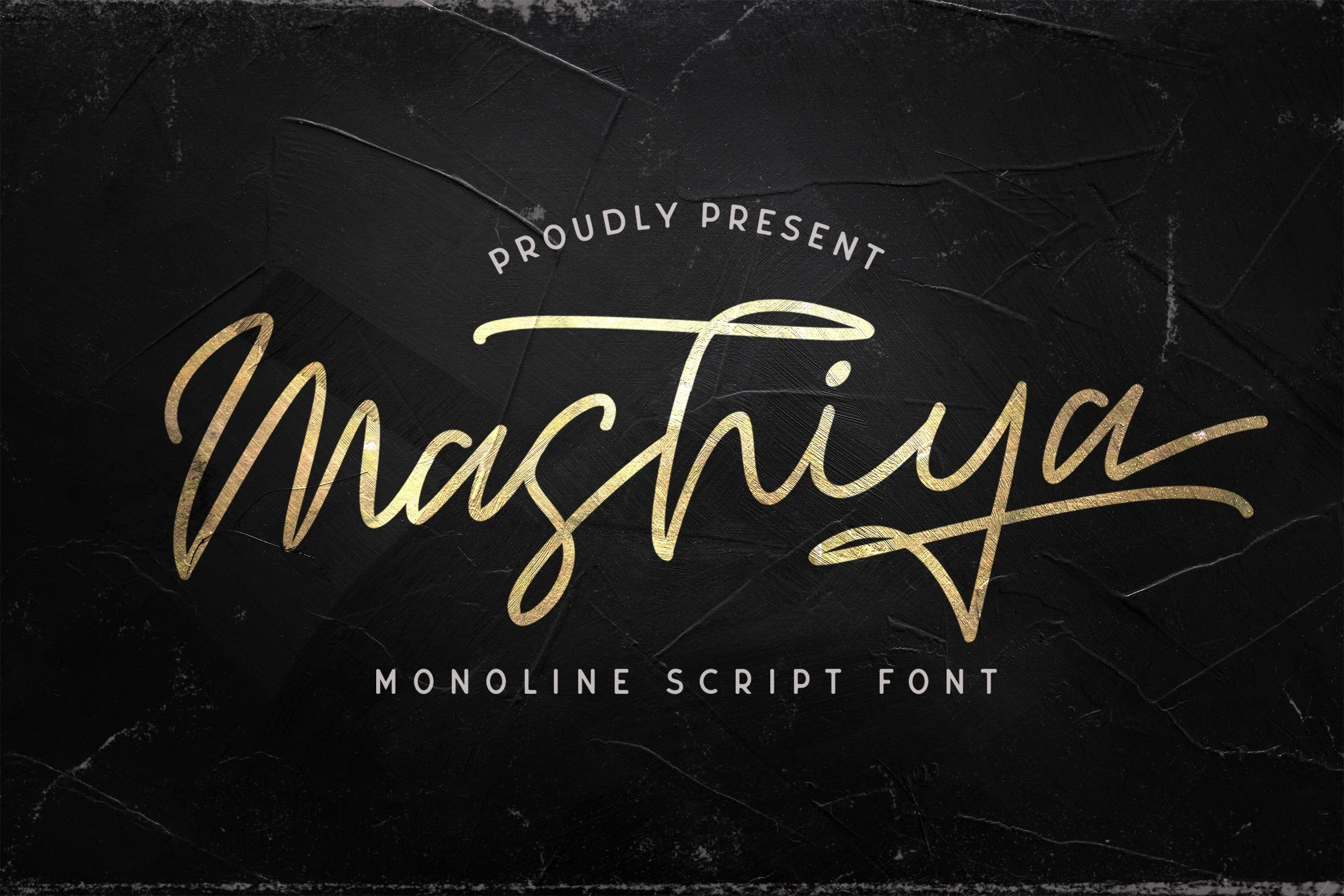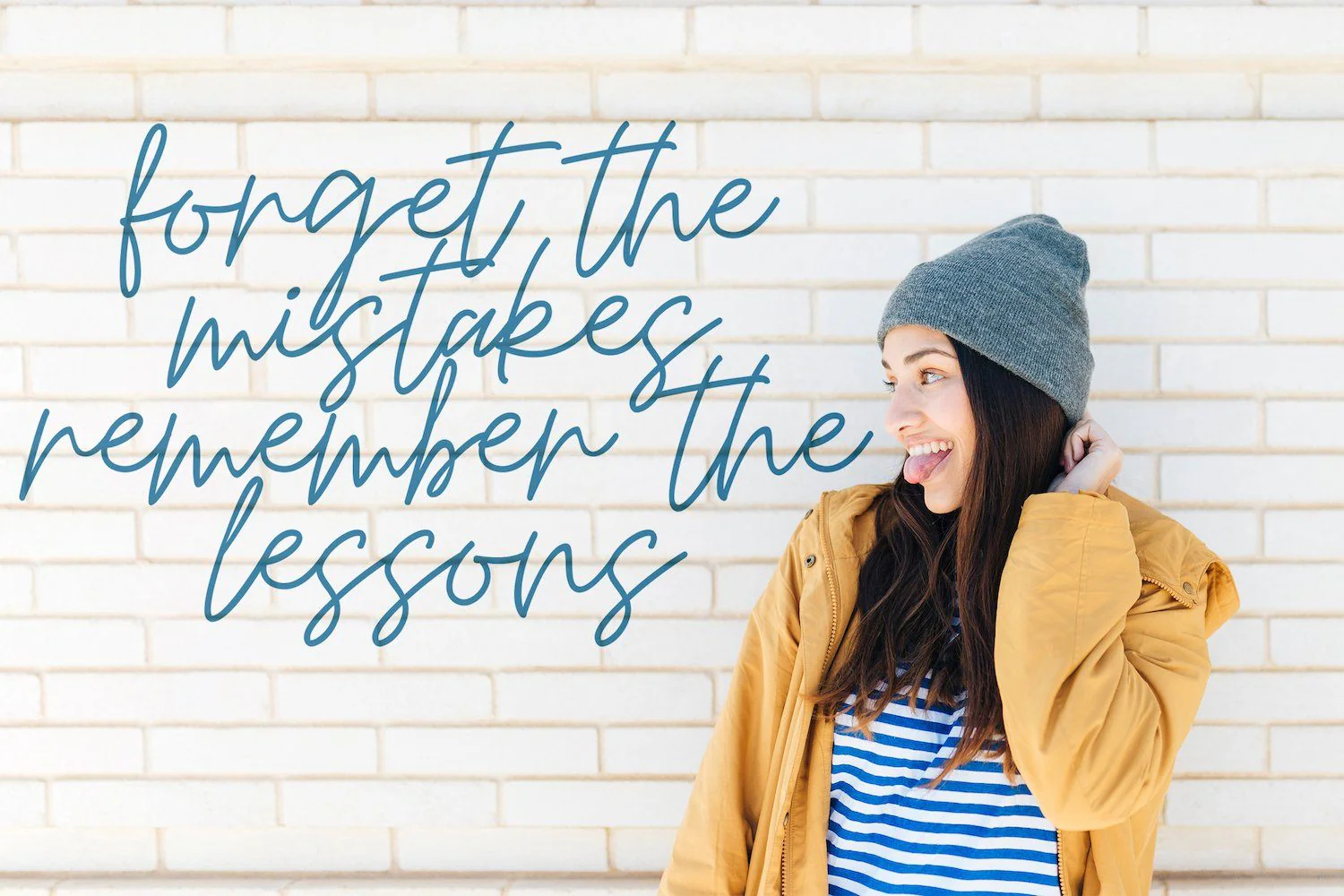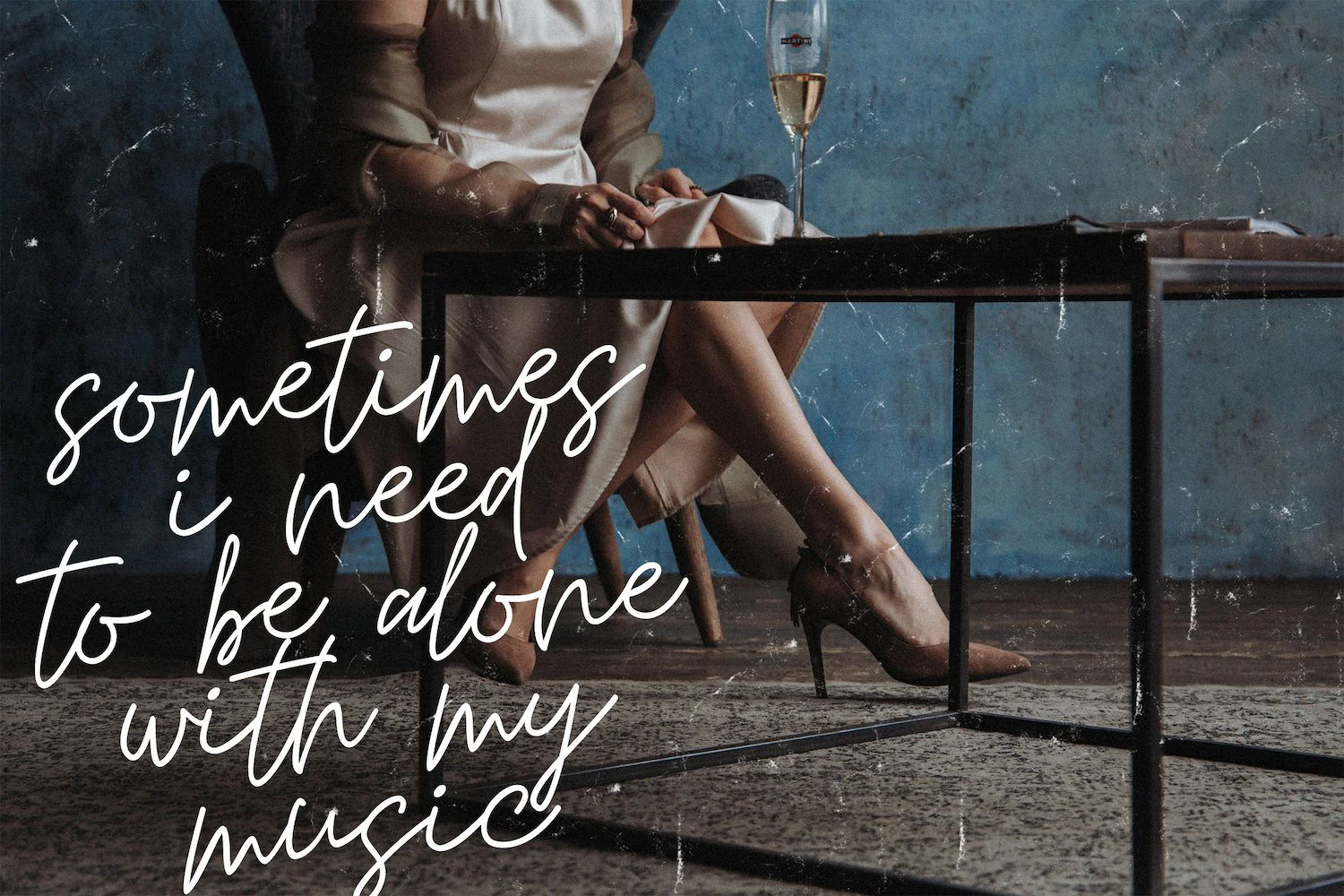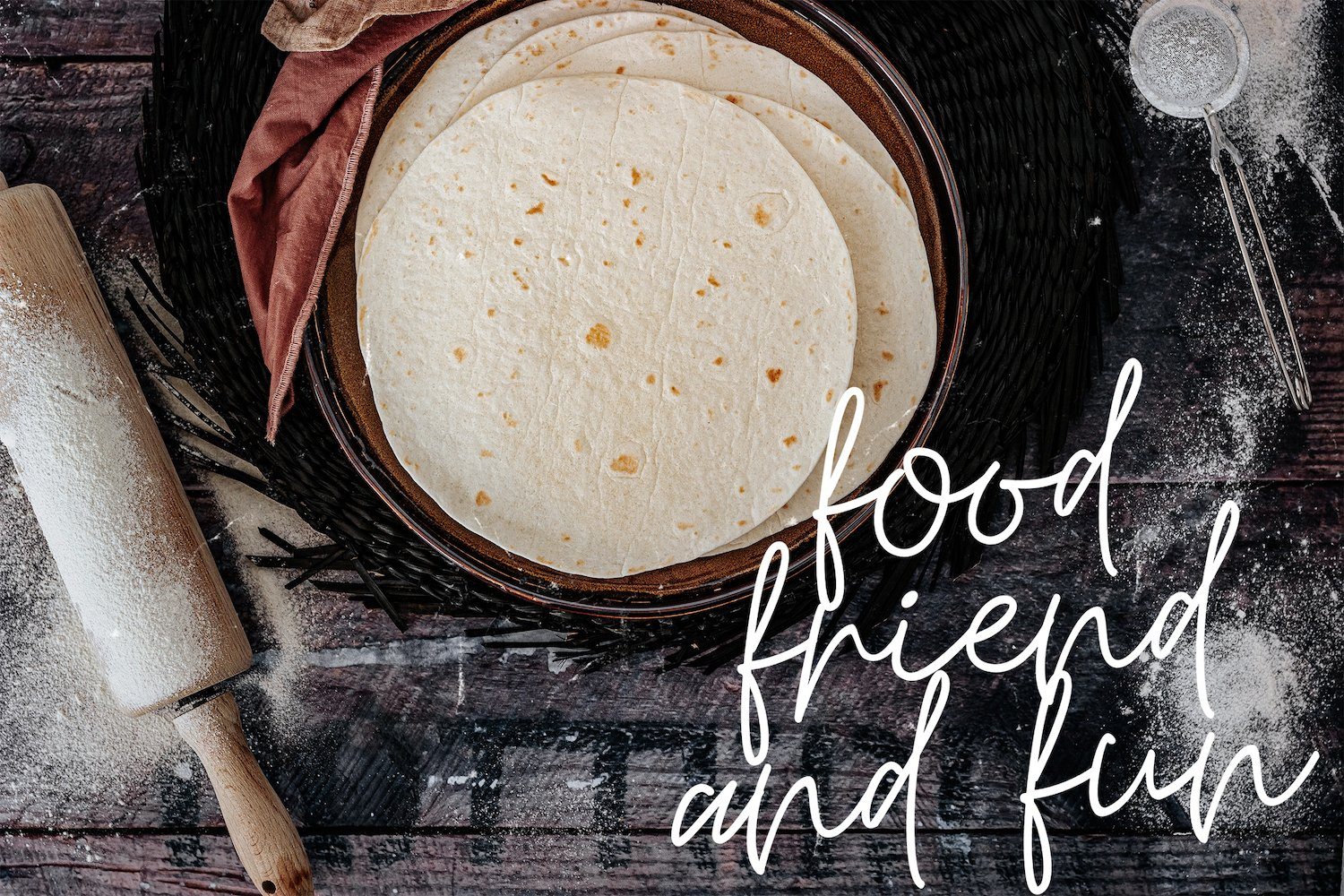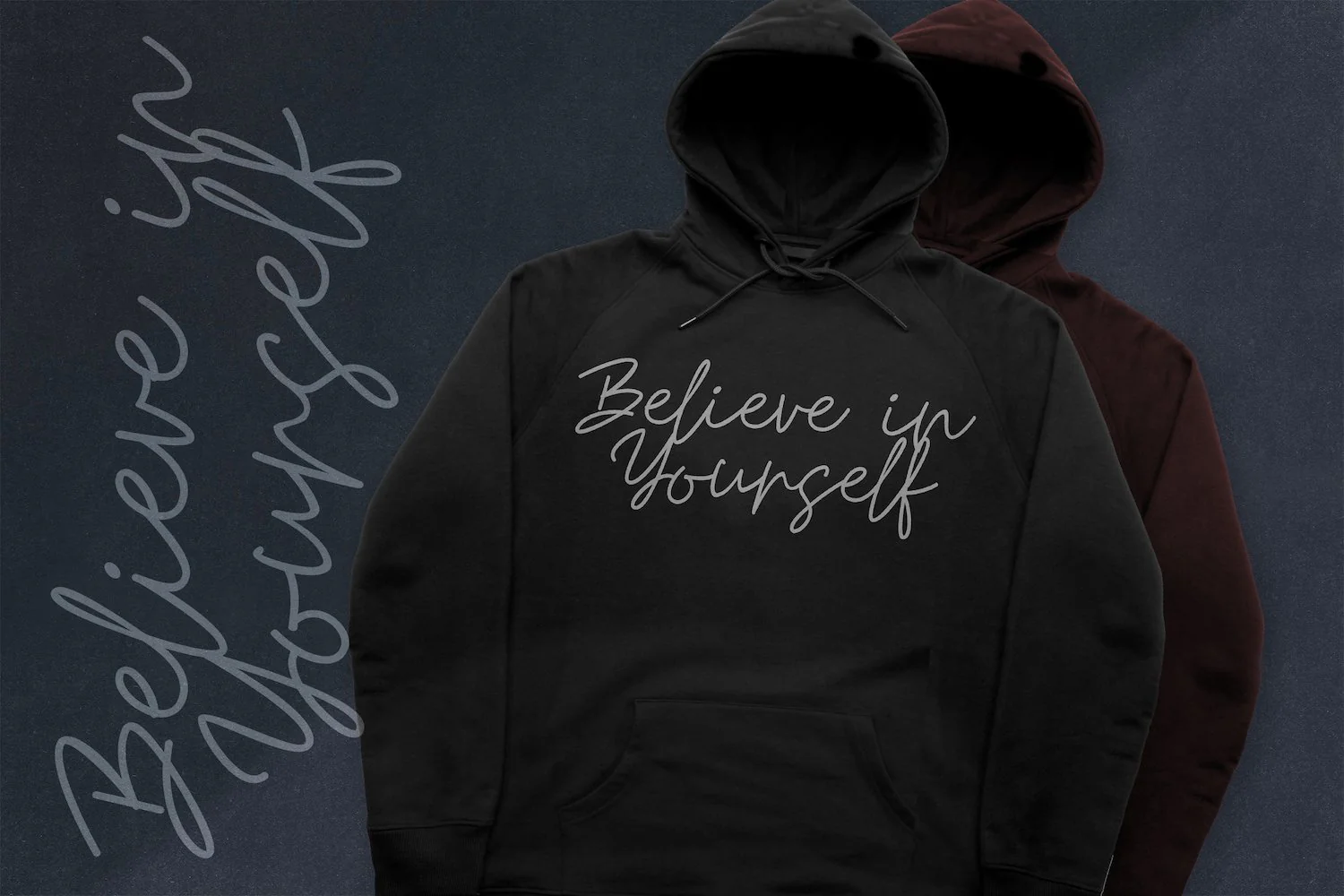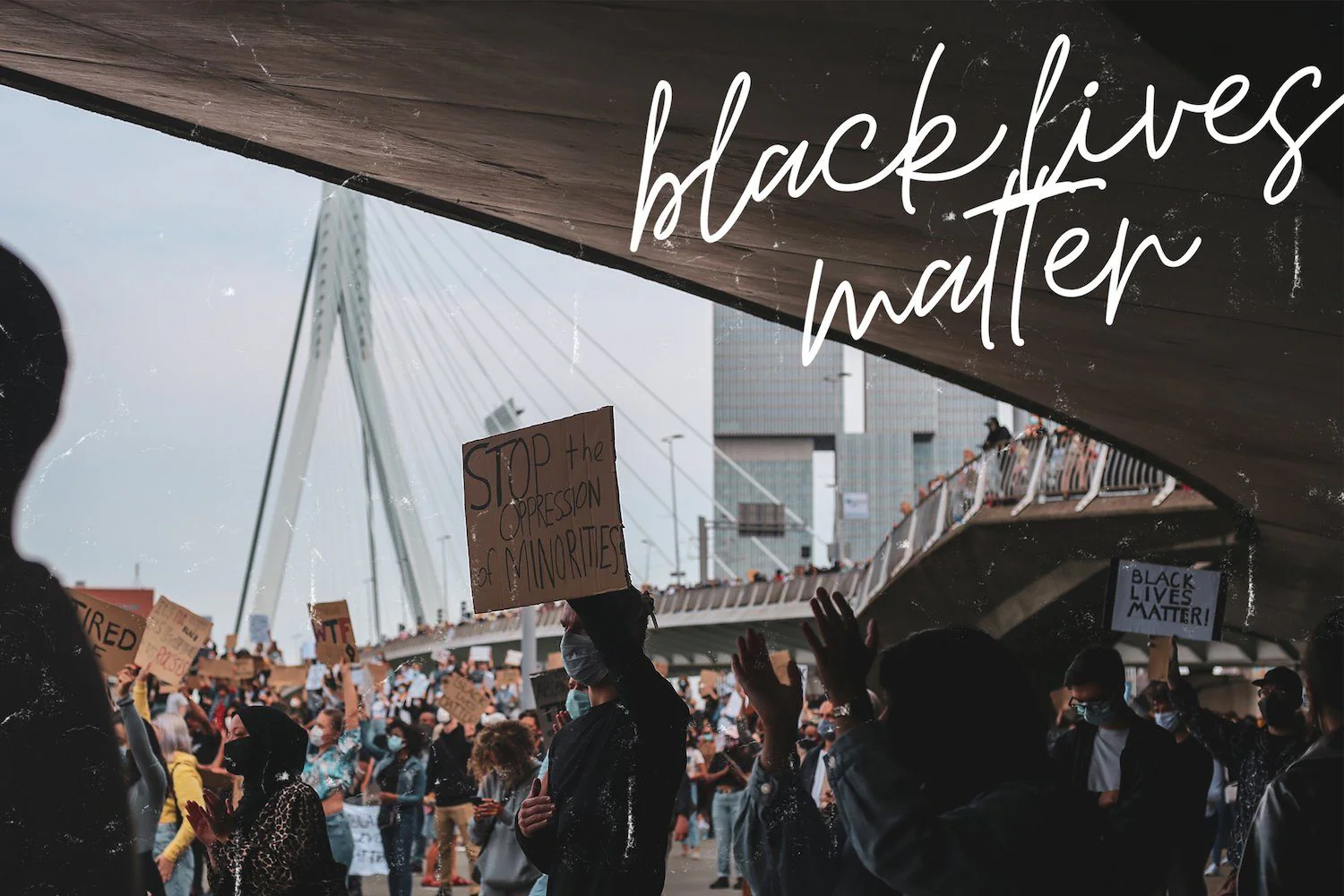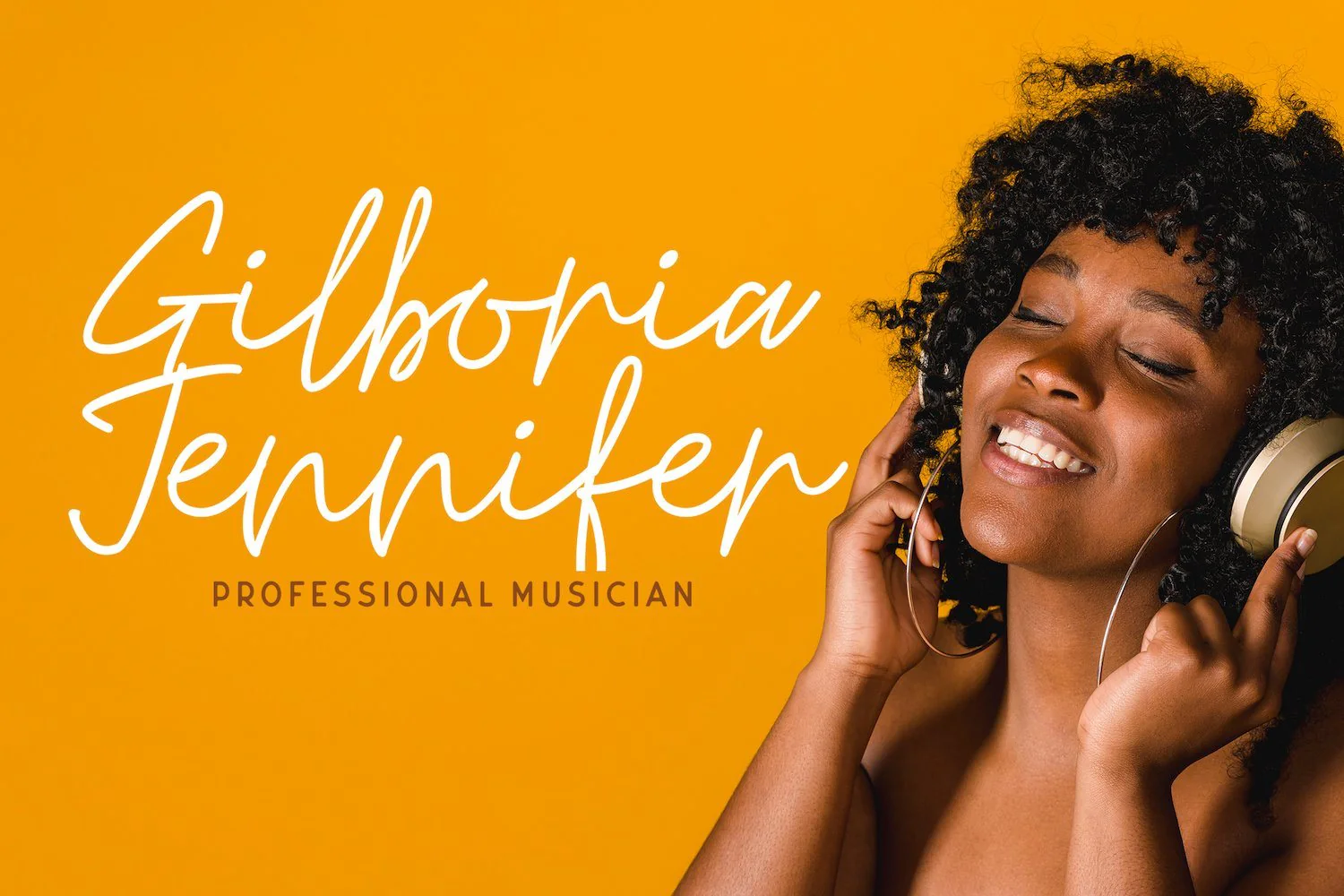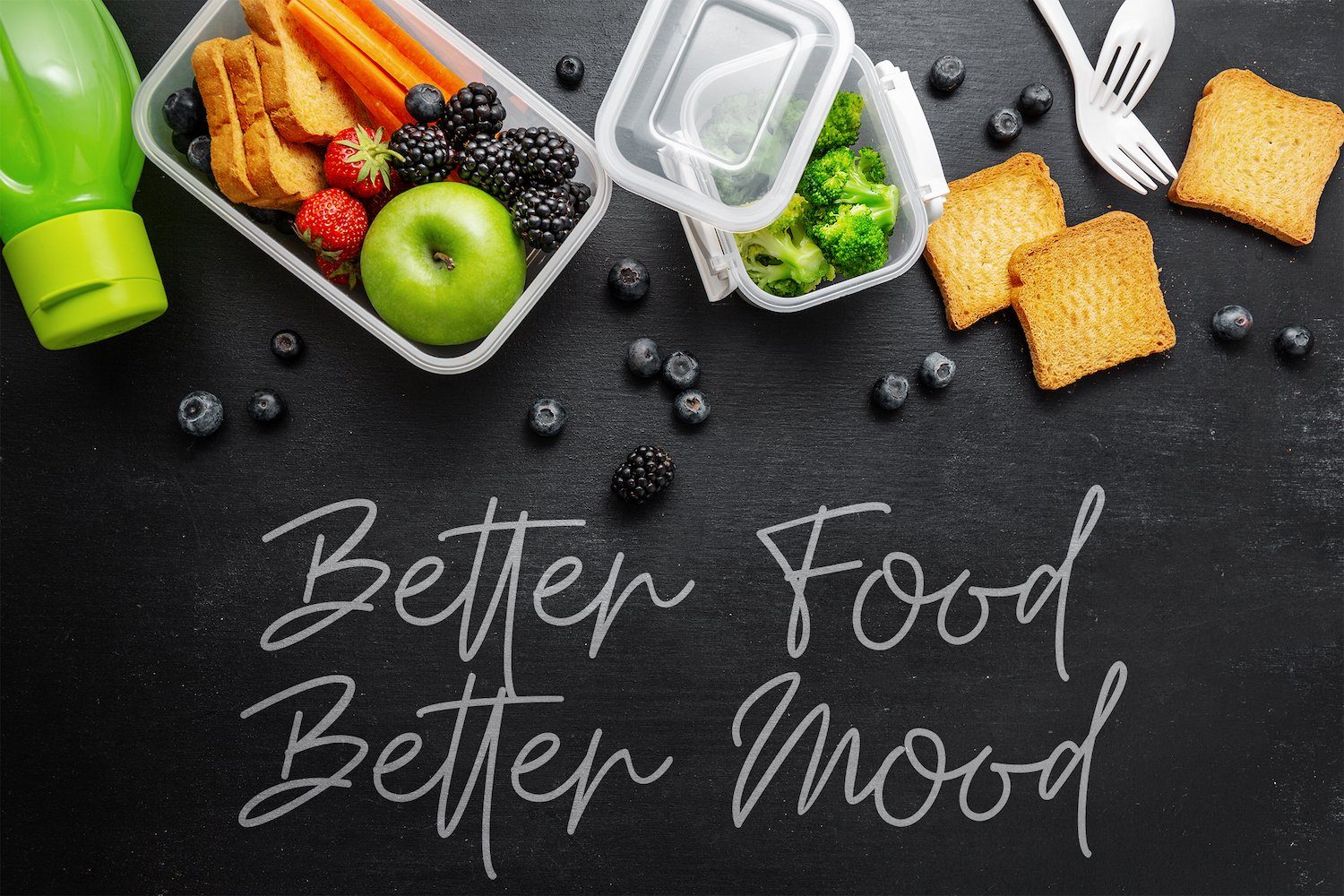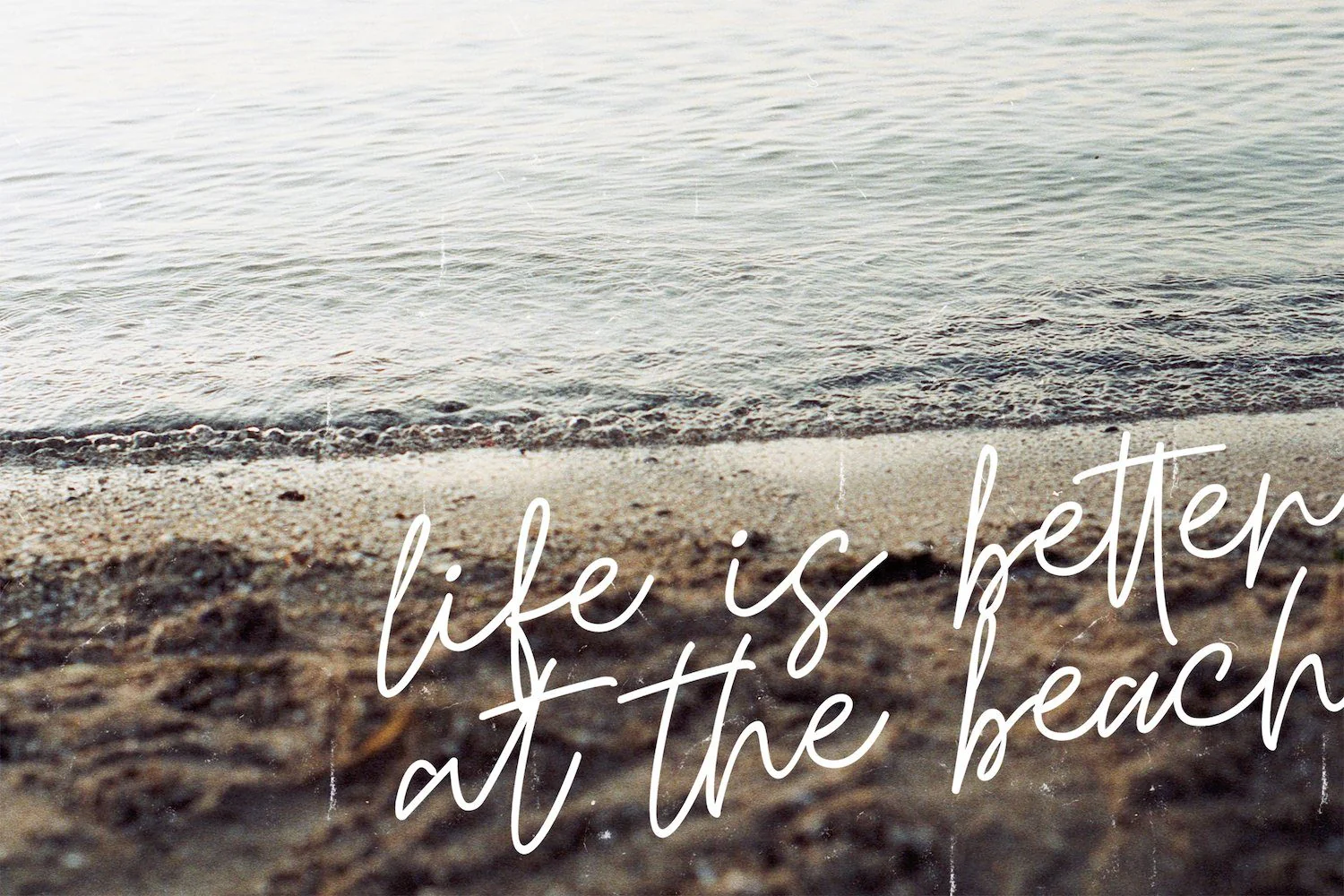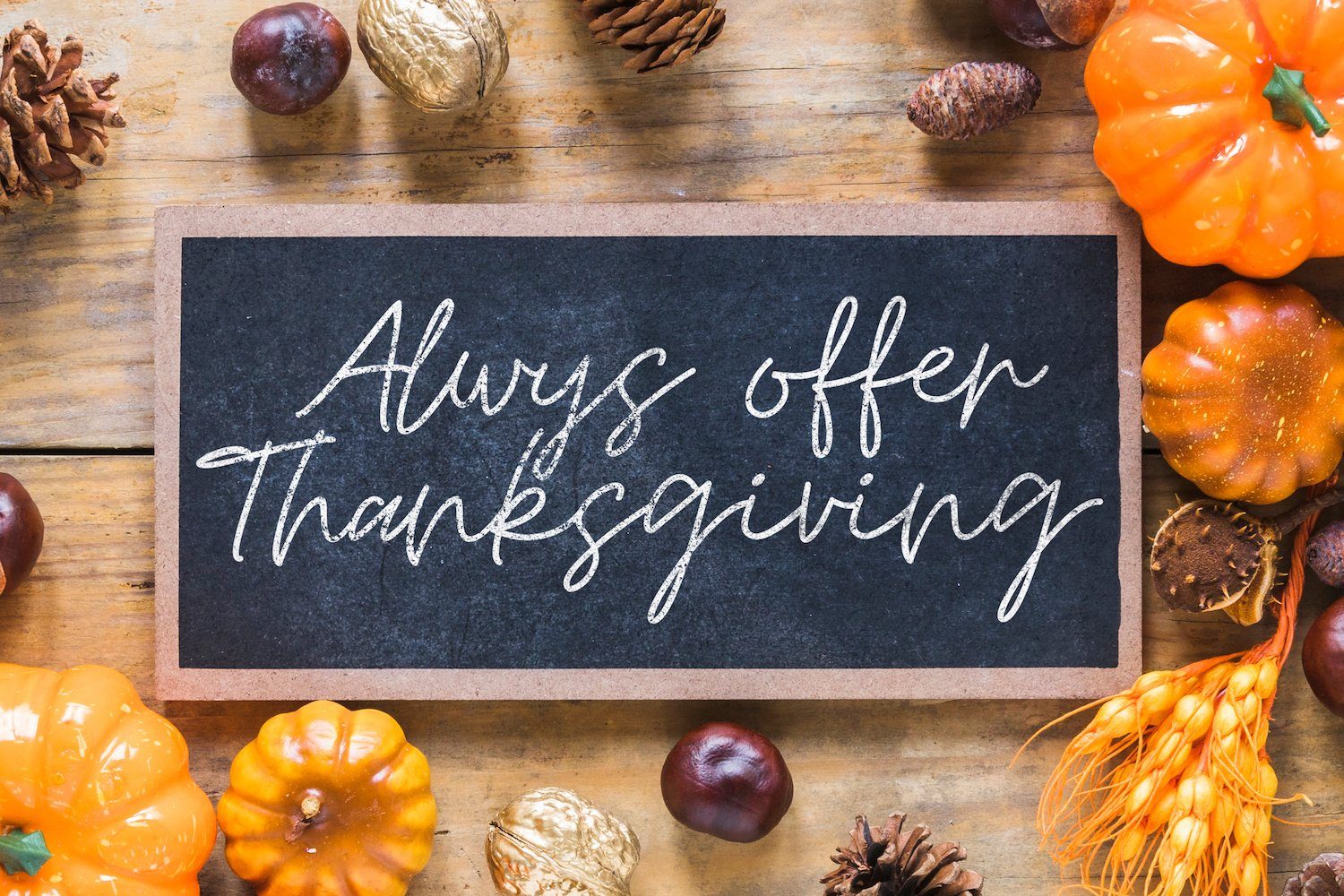
Mashiya - Monoline Script Font
Introducing Mashiya - Monoline Script Font
Mashiya is a Monoline Script Font with elegant style. This font is perfect for fashion brand, apparel, shoes company, wedding invitation, business card, logo brand, clothing, and also business brand name like barber shop or taylor.
This Font Template contains Luxury, Elegant, Creative, and has a Unique Concept.